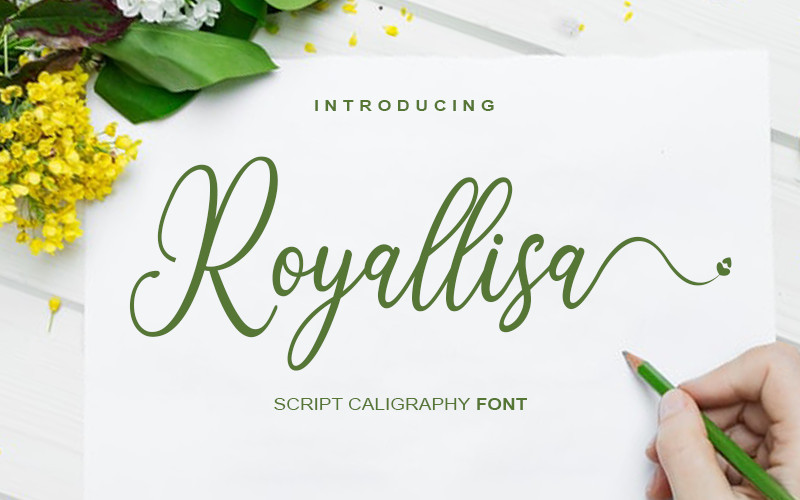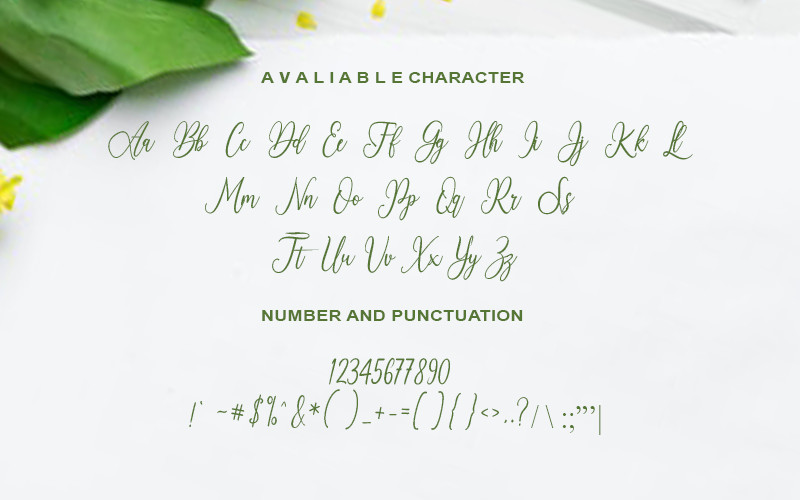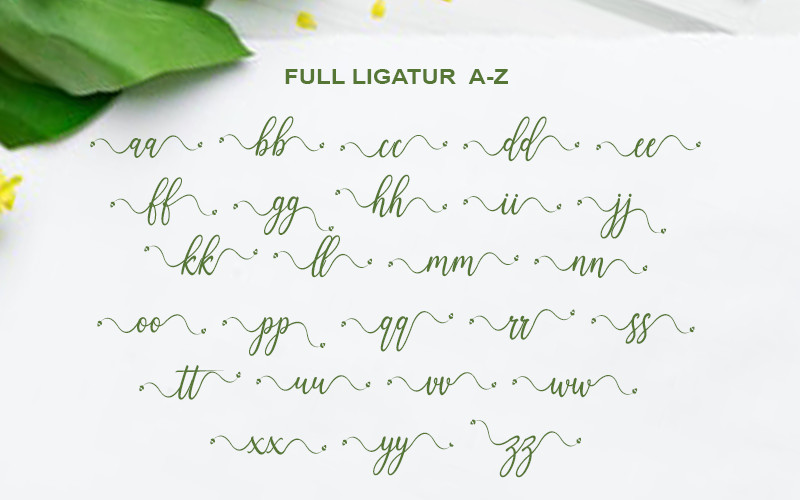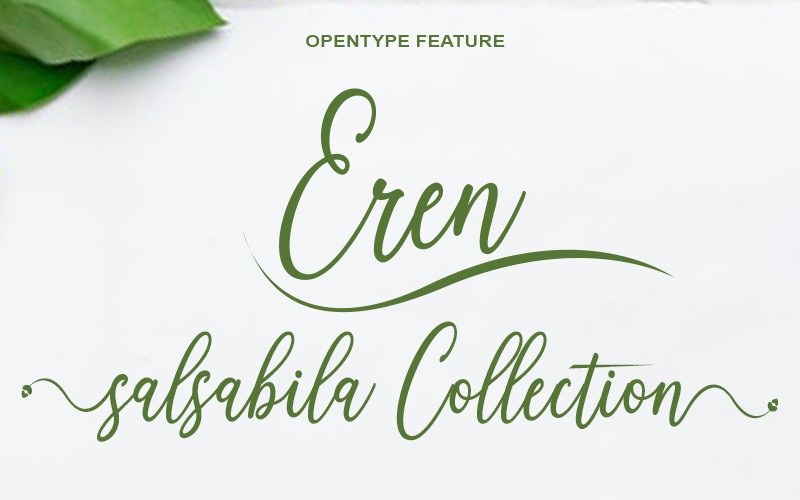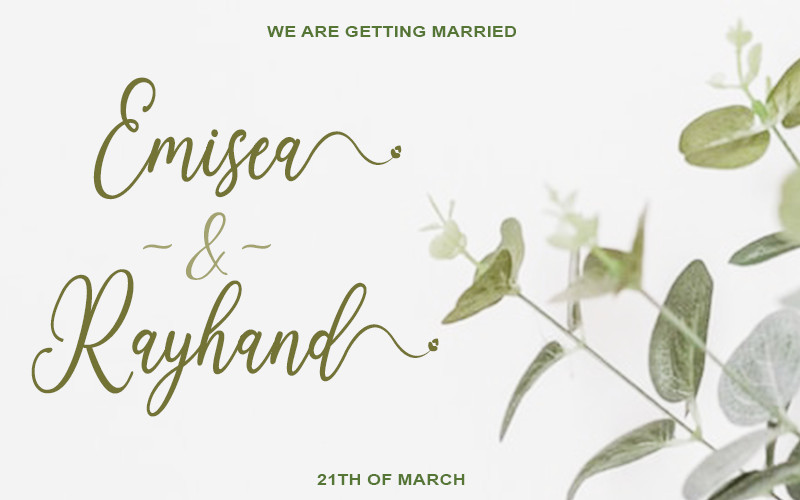
Royallisa Font is a beautiful handwritten font. It features an incredibly classic style, while still keeping a friendly feel. Royallisa is the perfect font for making original and outstanding designs.